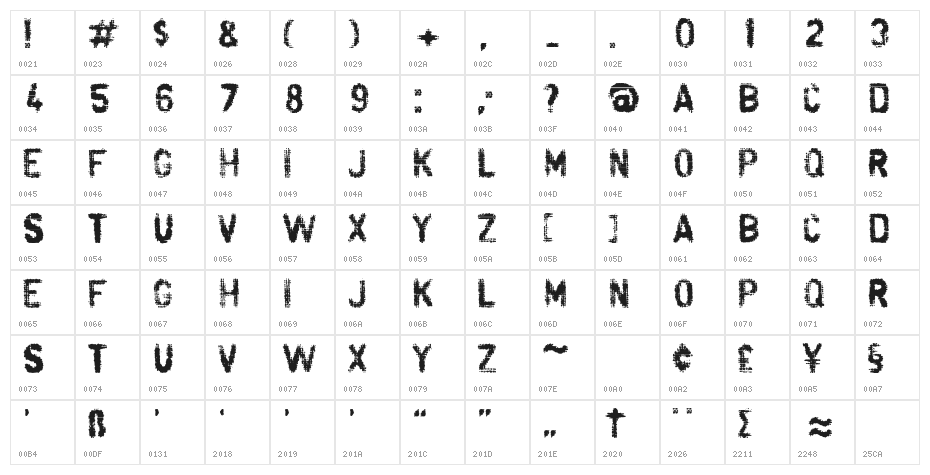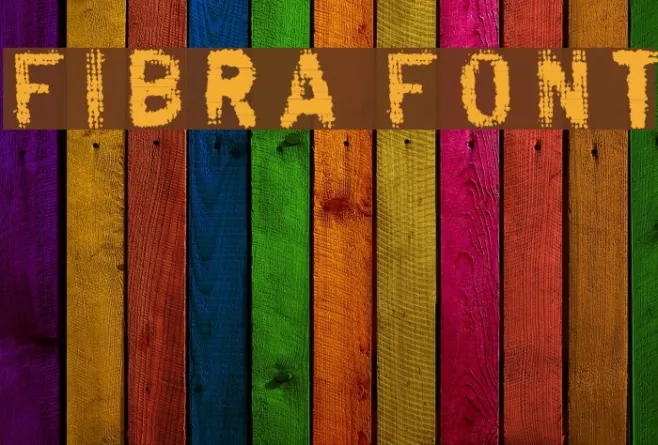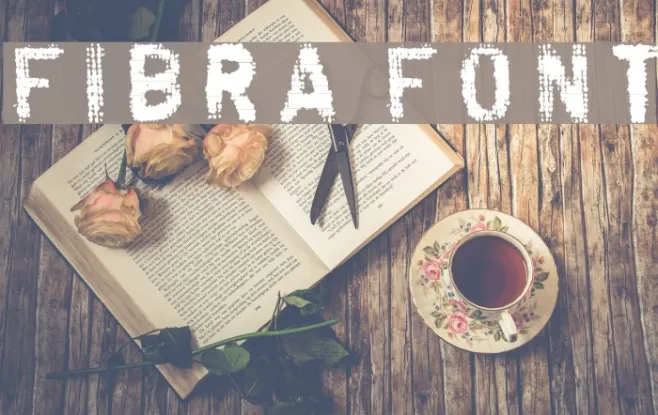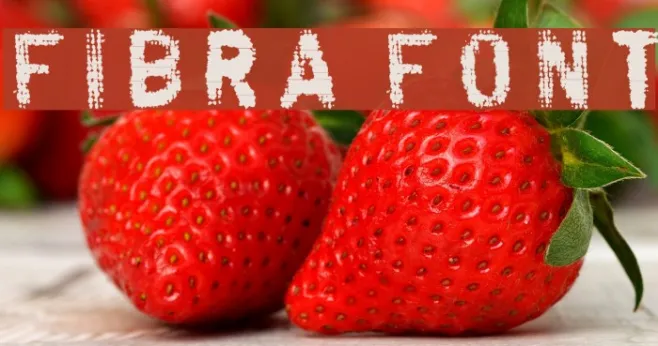
Fibra Font
Fibra Description
This font features a distressed, textured style that gives it a worn, vintage appearance. The characters are bold and uppercase, with a rough, uneven texture that suggests a hand-crafted or industrial aesthetic. The font's unique appearance makes it stand out, with each letter appearing as if it has been stamped or printed with a slightly imperfect technique. This adds a sense of authenticity and character, making it ideal for projects that require a gritty, urban feel. The numerals and special characters maintain the same textured style, ensuring consistency across all elements.